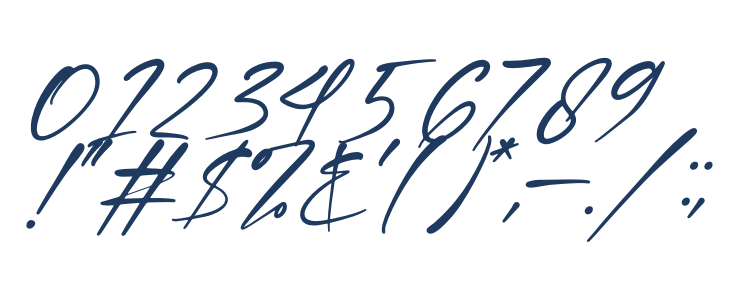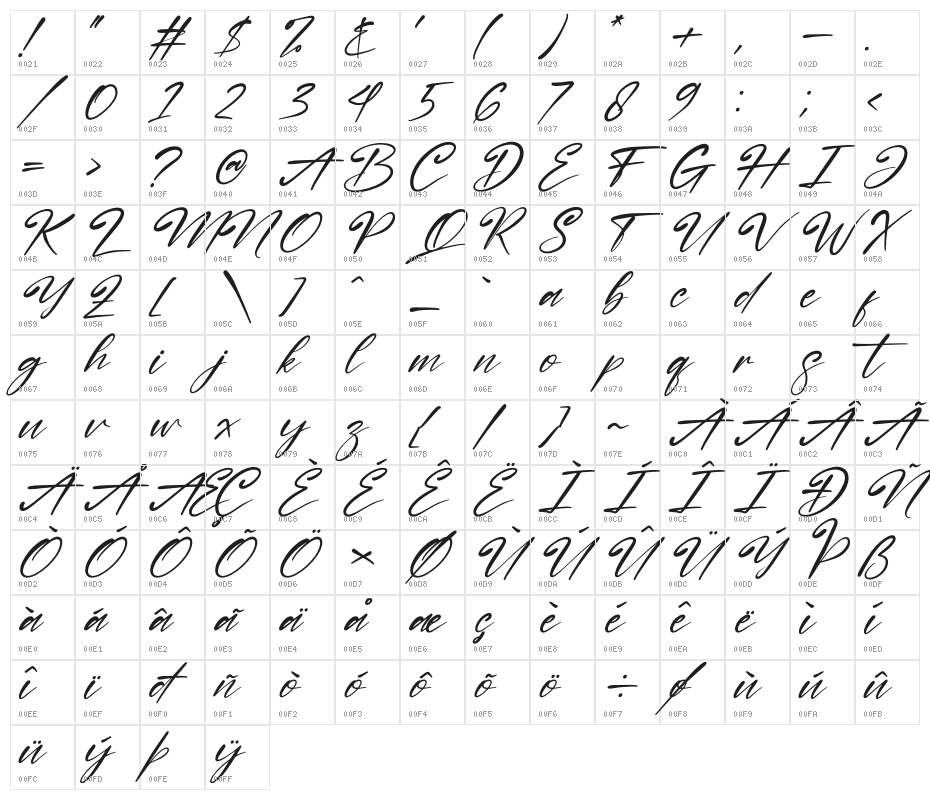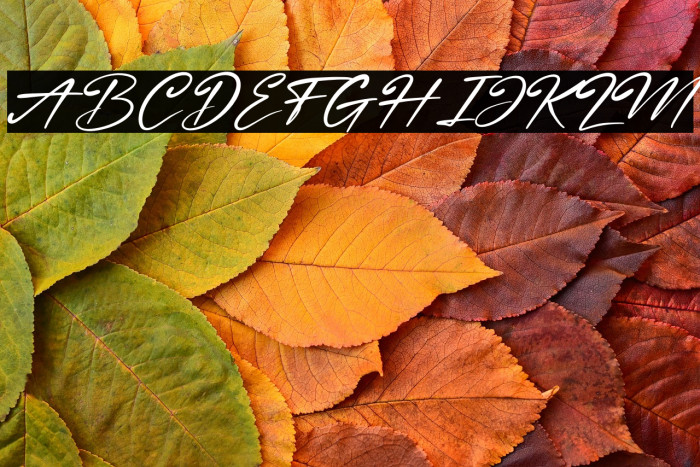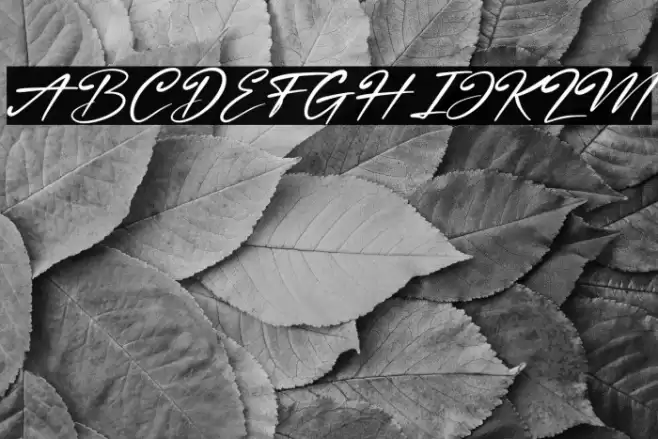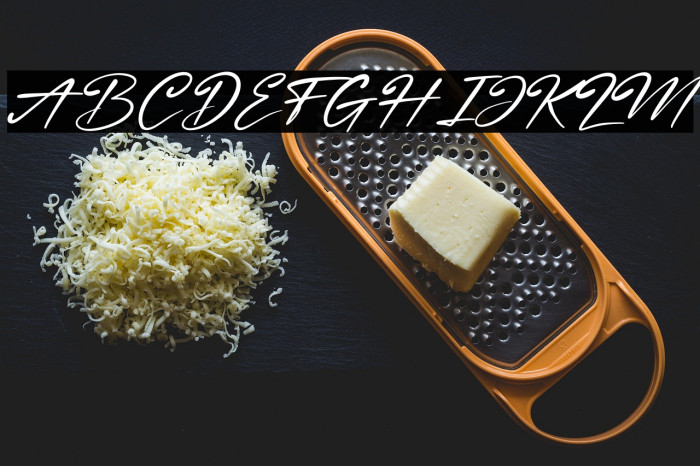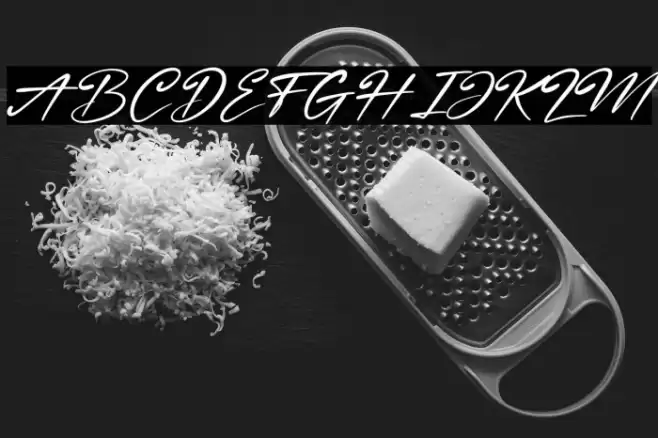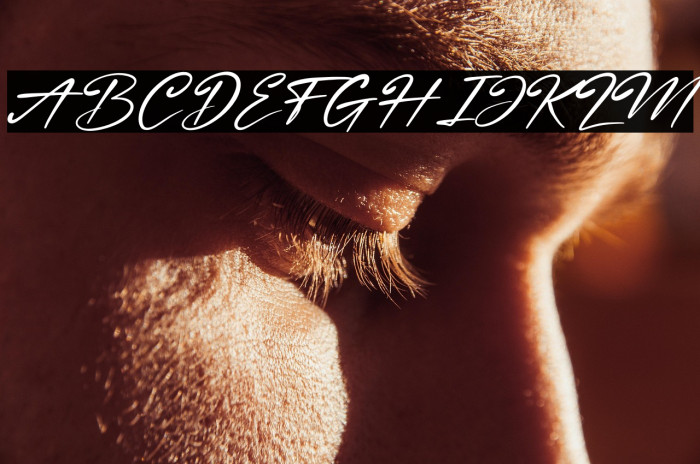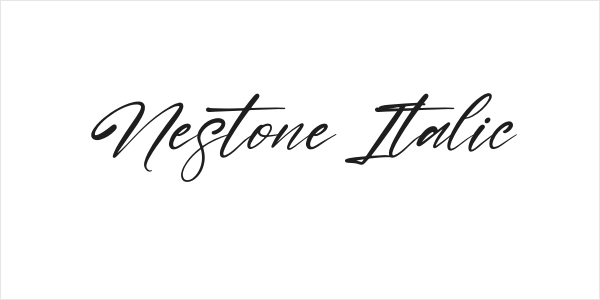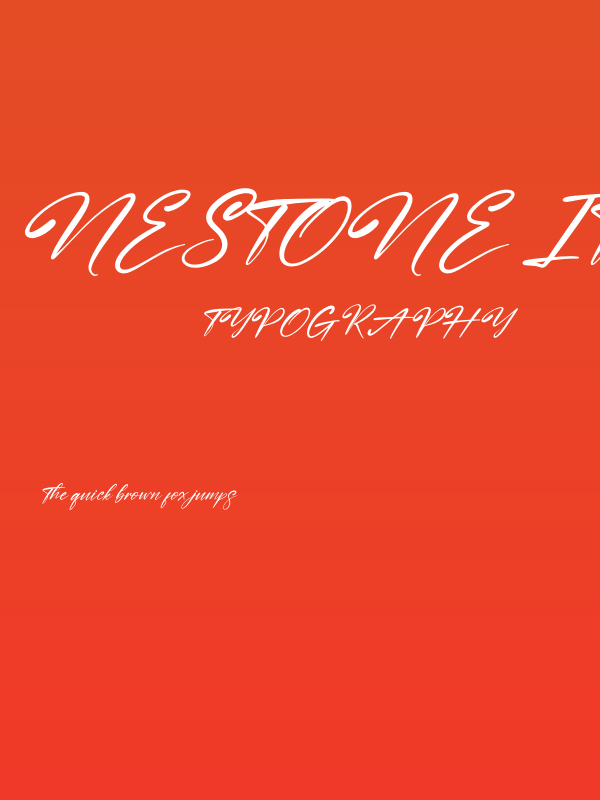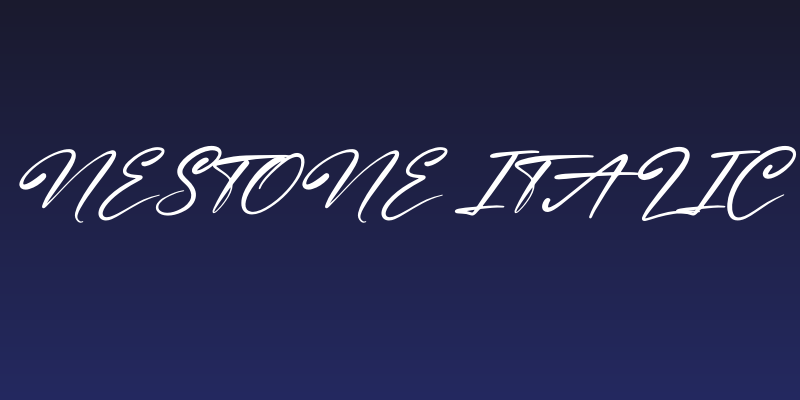
Nestone Italic Font
Nestone Italic Description
This font exhibits a dynamic and fluid script style, characterized by its elegant and flowing cursive strokes. The letters are interconnected, creating a seamless and continuous appearance that mimics natural handwriting. The uppercase letters are slightly more elaborate, with graceful loops and swirls, while the lowercase letters maintain a consistent rhythm and balance. The numerals and special characters are designed to complement the overall script style, ensuring a cohesive look across all text elements. This font's italic nature adds a sense of motion and sophistication, making it suitable for creative and expressive design projects.
| Overall Style | Elegant, Artistic |
| Proposed Projects | Ideal for wedding invitations, greeting cards, personal branding, and artistic projects requiring a touch of elegance and sophistication. |